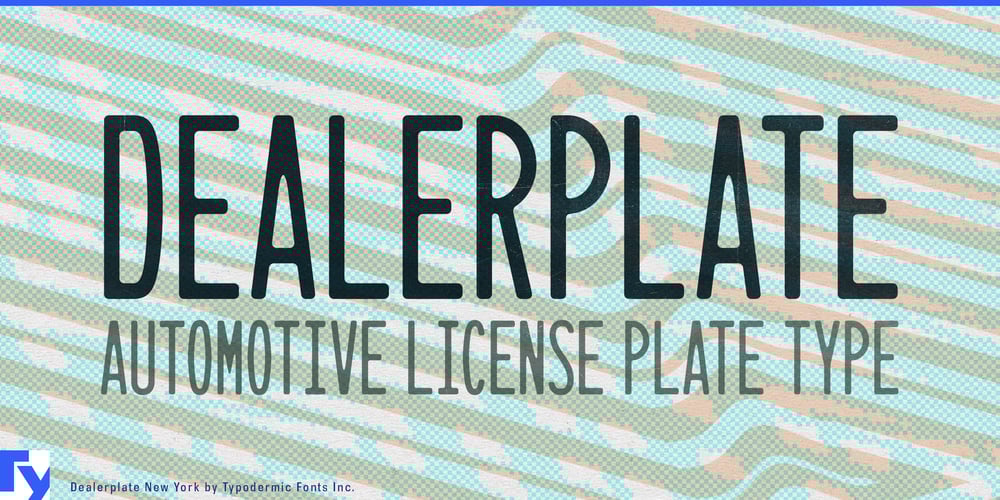
Dealerplate Font Family was designed by Ray Larabie and published by Typodermic. Dealerplate contains 17 styles and family package options. Rev up your design game with Dealerplate, the typeface that brings the authentic license plate style to your projects. With 17 embossed designs from states and provinces across the United States and Canada, you can infuse your work with the rugged charm of the highway.Imagine cruising down the Pacific Coast Highway with the iconic California plate leading the way, or meandering through the lush Everglades with Florida’s distinct design as your guide. Picture yourself driving down the Magnificent Mile, the Illinois plate gleaming in the Chicago sun, or exploring the Chesapeake Bay with Maryland’s plate as your companion. From the historic streets of Boston, adorned with Massachusetts plates, to the motor city of Detroit, where Michigan’s plates reign supreme, Dealerplate takes you on a typographic road trip. You can almost hear the jazz music floating through the air in Missouri or feel the salty breeze coming off the Atlantic in New Jersey.The bright lights of New York City shine on its iconic plate, while Ohio’s design evokes the rustbelt’s industrial spirit. Traverse the rugged terrain of North Carolina, Utah, or Alaska with their plates as your beacon, or cross the border into Canada and explore the vibrant cities in Ontario and Quebec. From the Appalachian Mountains of Pennsylvania to the Shenandoah Valley of Virginia, Dealerplate is your trusty companion. The typeface even takes you to the great Pacific Northwest with Washington’s plate and the cheese-loving state of Wisconsin.To truly capture the essence of the license plate look, simply turn off kerning in your design application. This small tweak will create a more genuine appearance, as if your text was stamped right onto a metal plate. Dealerplate’s attention to detail ensures that your designs will have that perfect, road-worn feel. But Dealerplate is more than just a pretty face—it’s also a workhorse. With OpenType fractions, numeric ordinals, mathematical symbols, and monetary symbols, this typeface is ready to tackle any design challenge you throw its way. And with support for a vast array of languages—including Greek, Vietnamese, and many Cyrillic-based languages—Dealerplate is ready to hit the global highway.Upgrade your design toolkit with Dealerplate and add a touch of authentic, road-tested style to your work. With its combination of rugged good looks and typographic prowess, this typeface is sure to become your go-to choice for projects that demand a bold, adventurous spirit.